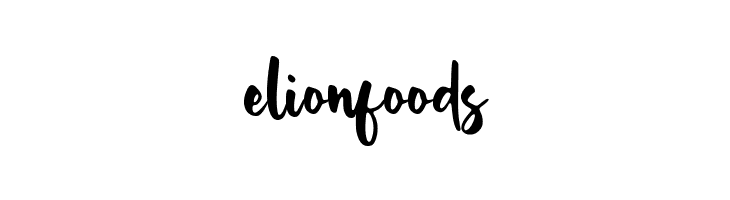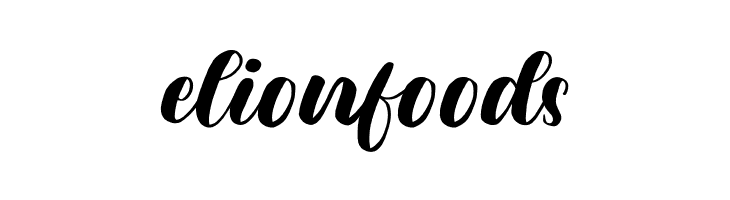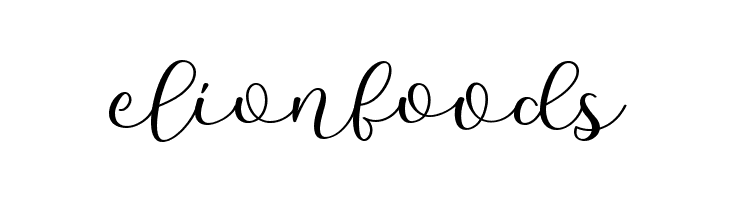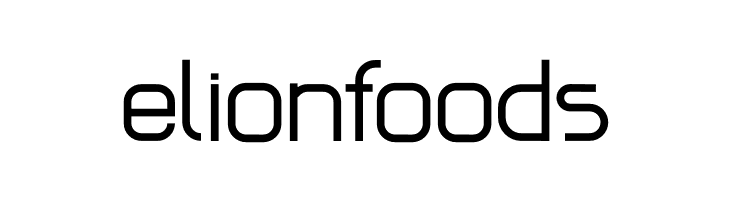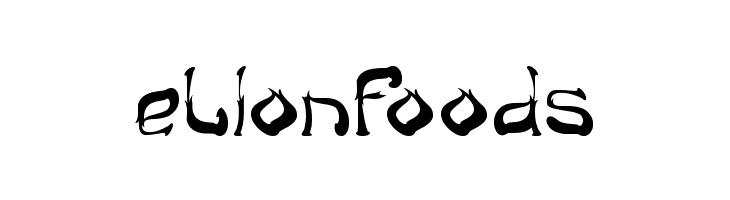
A bold, decorative font with playful curves and high contrast, perfect for vintage-inspired designs.
A bold, expressive script font with flowing, cursive letters.
A graceful and sophisticated script font with flowing cursive letterforms.
A modern, geometric sans-serif font with clean lines and a futuristic feel.
An artistic, whimsical font with a gothic, hand-drawn style.
An artistic and whimsical font with a gothic flair and irregular strokes.
A playful, bold font with star cutouts and a modern outline style.
A lively and expressive handwritten font with dynamic strokes.
A bold, playful handwritten font with rounded characters.
A bold, flowing script font with a modern and elegant style.